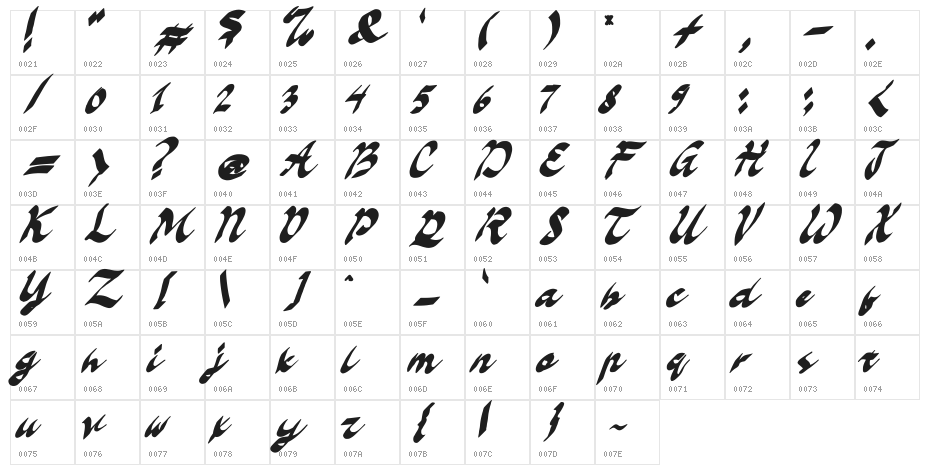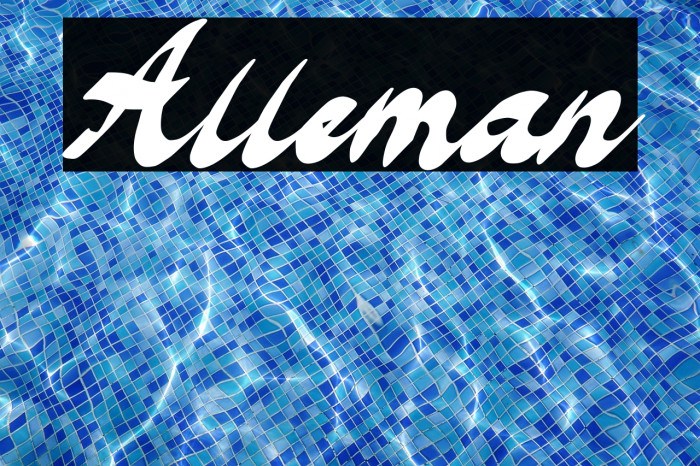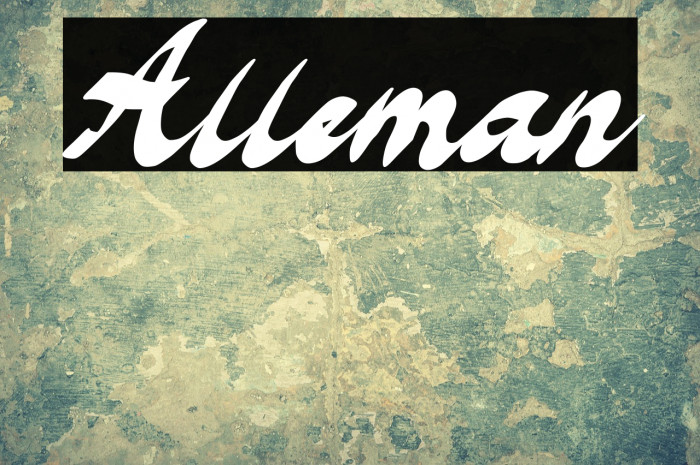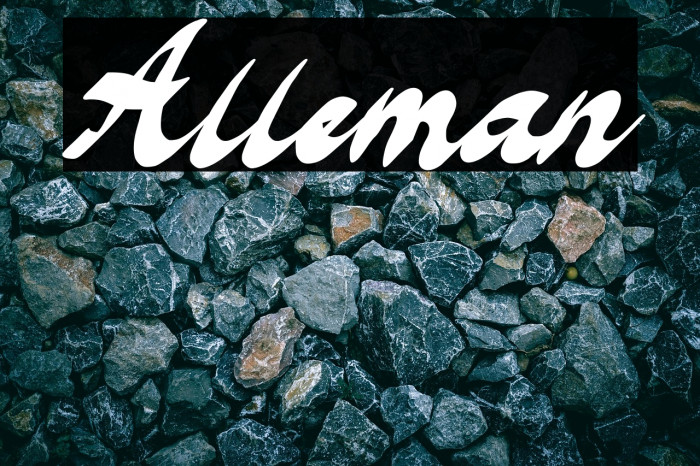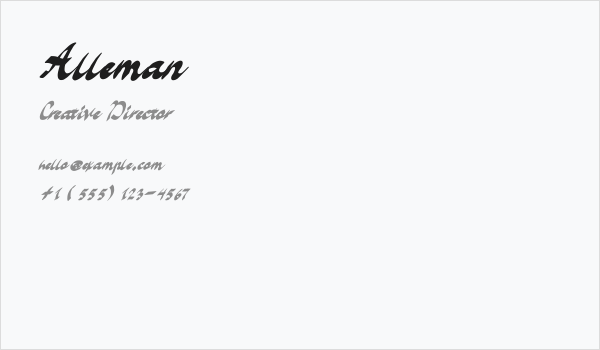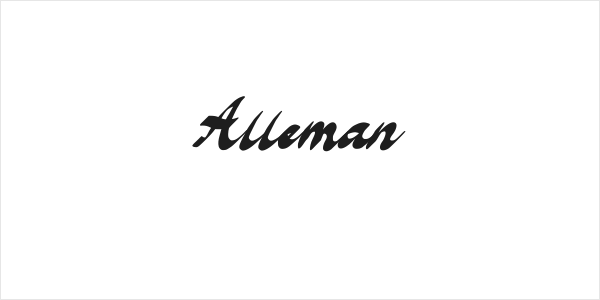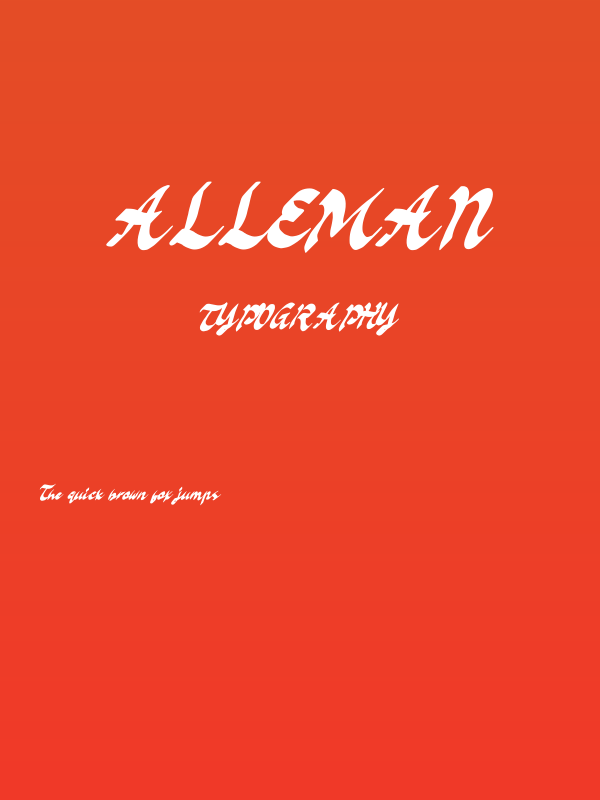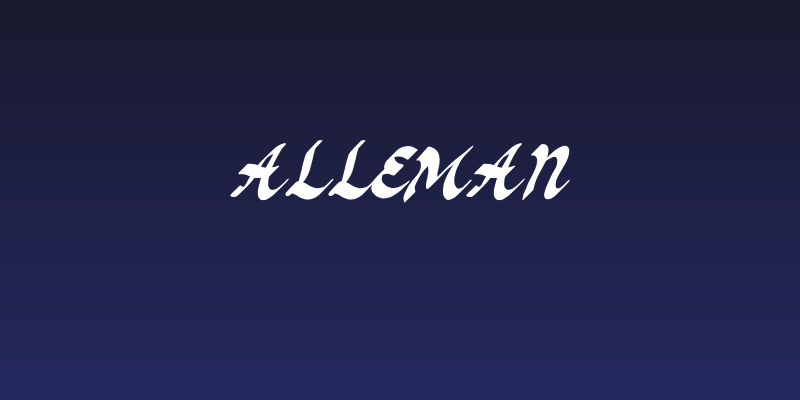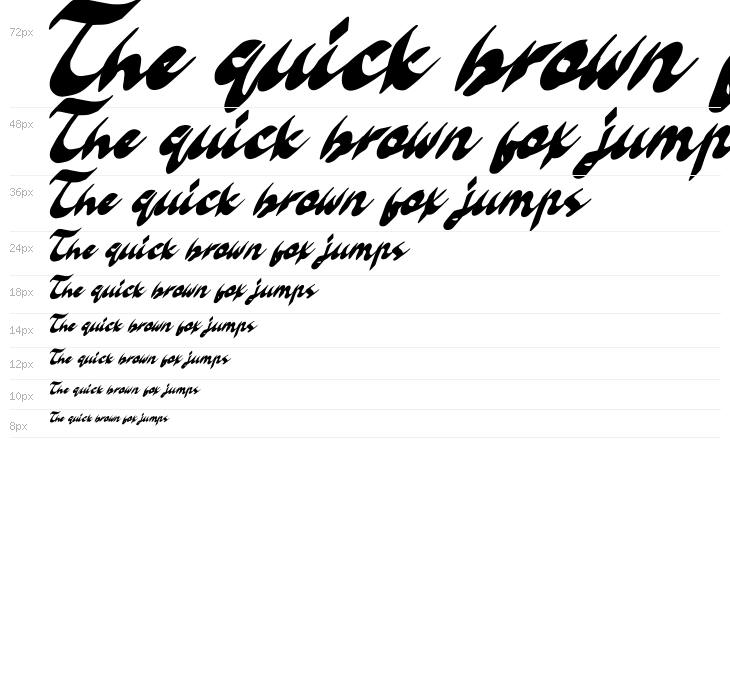
Alleman Font
Alleman Description
This font features a bold and dynamic script style with a strong calligraphic influence. The letters are characterized by thick, sweeping strokes and sharp, angular edges, giving it a sense of movement and energy. The uppercase and lowercase letters maintain a consistent style, with a slight slant that enhances the cursive feel. Numbers and special characters are equally bold, ensuring a cohesive look across all text elements. The overall appearance is striking and eye-catching, making it suitable for designs that require a touch of elegance and flair.
| Proposed Projects | Ideal for branding, invitations, posters, and any project that requires a dramatic and elegant touch. |